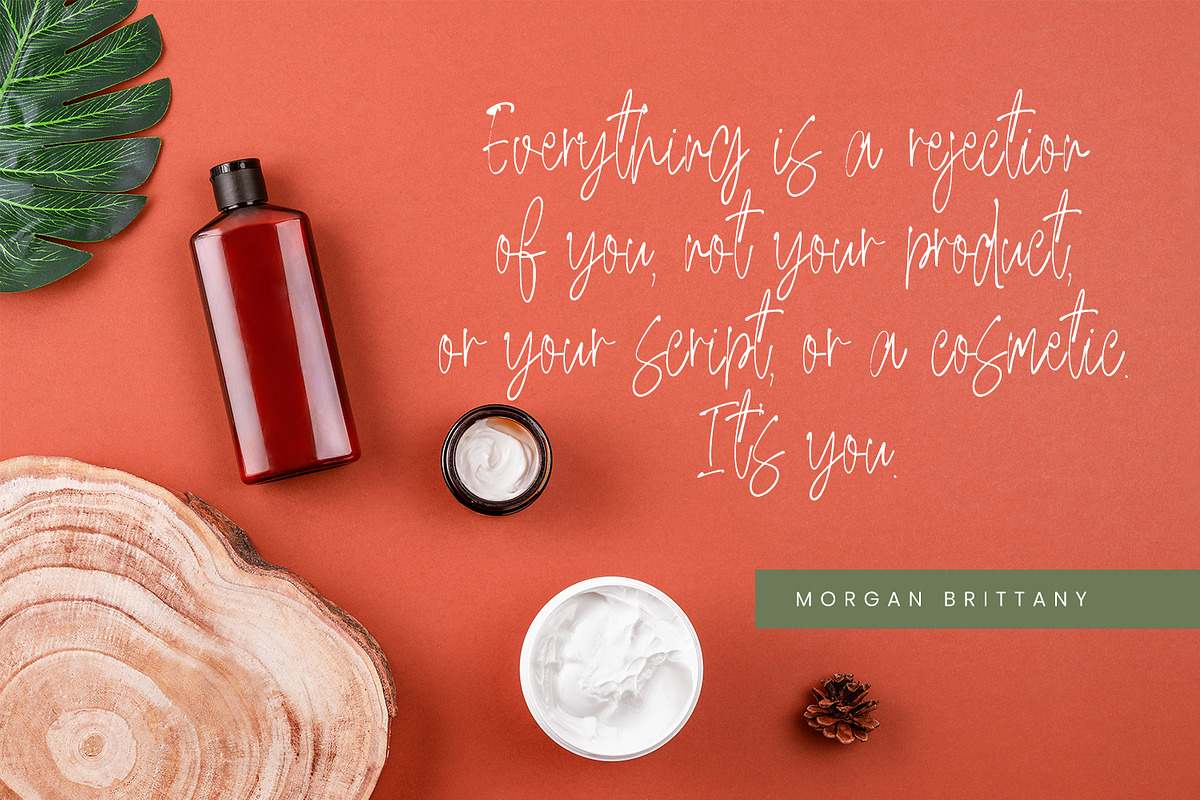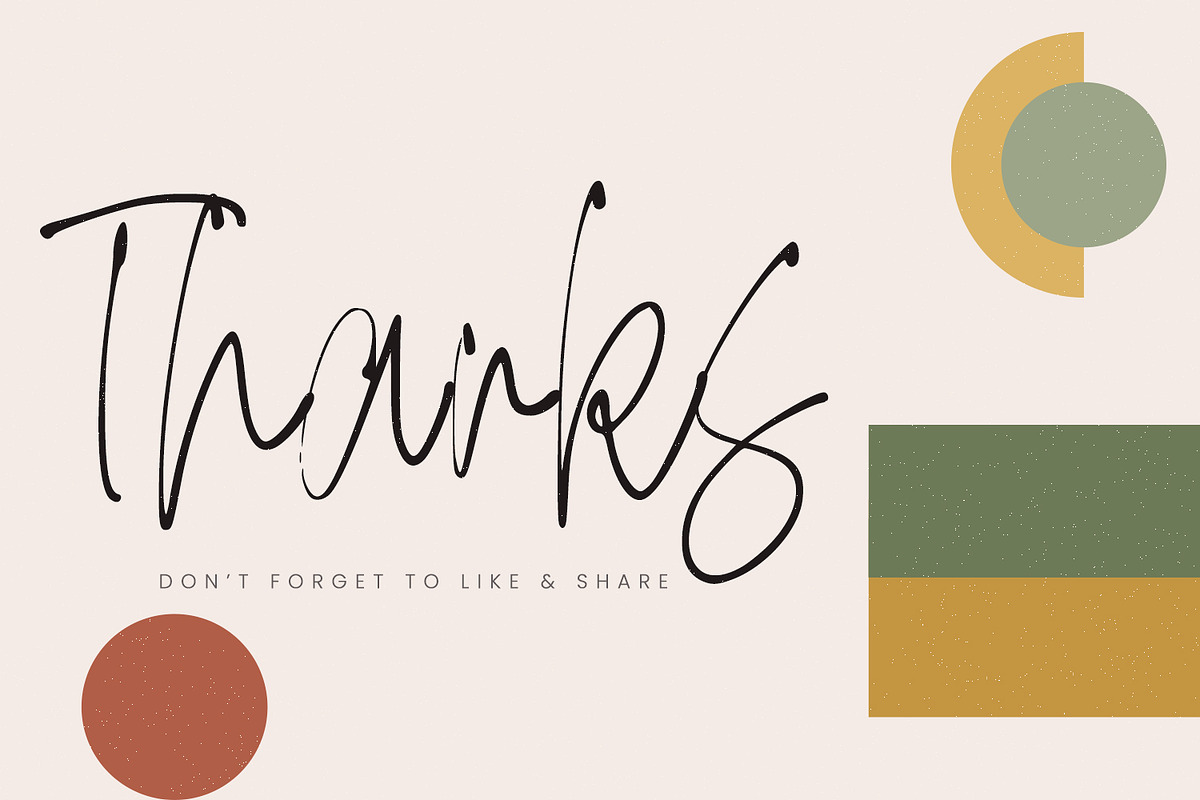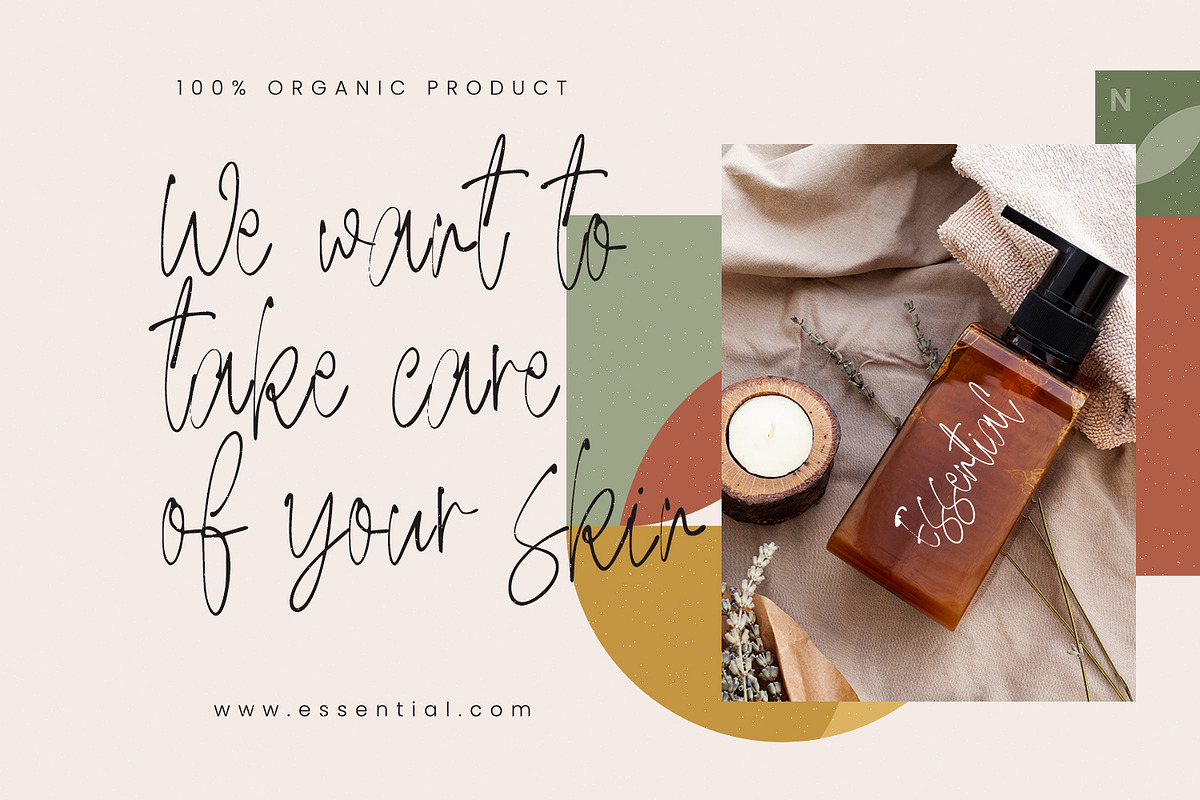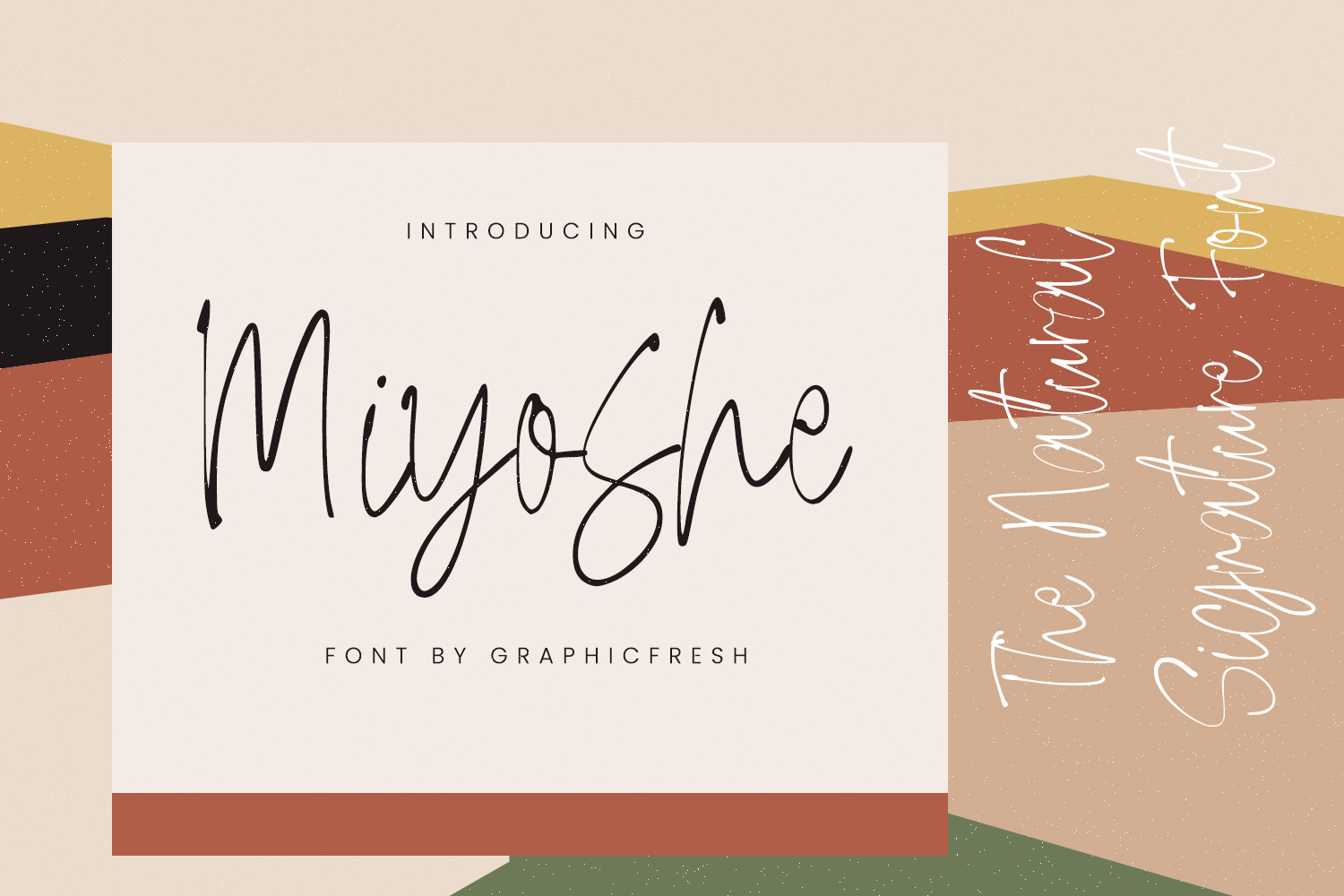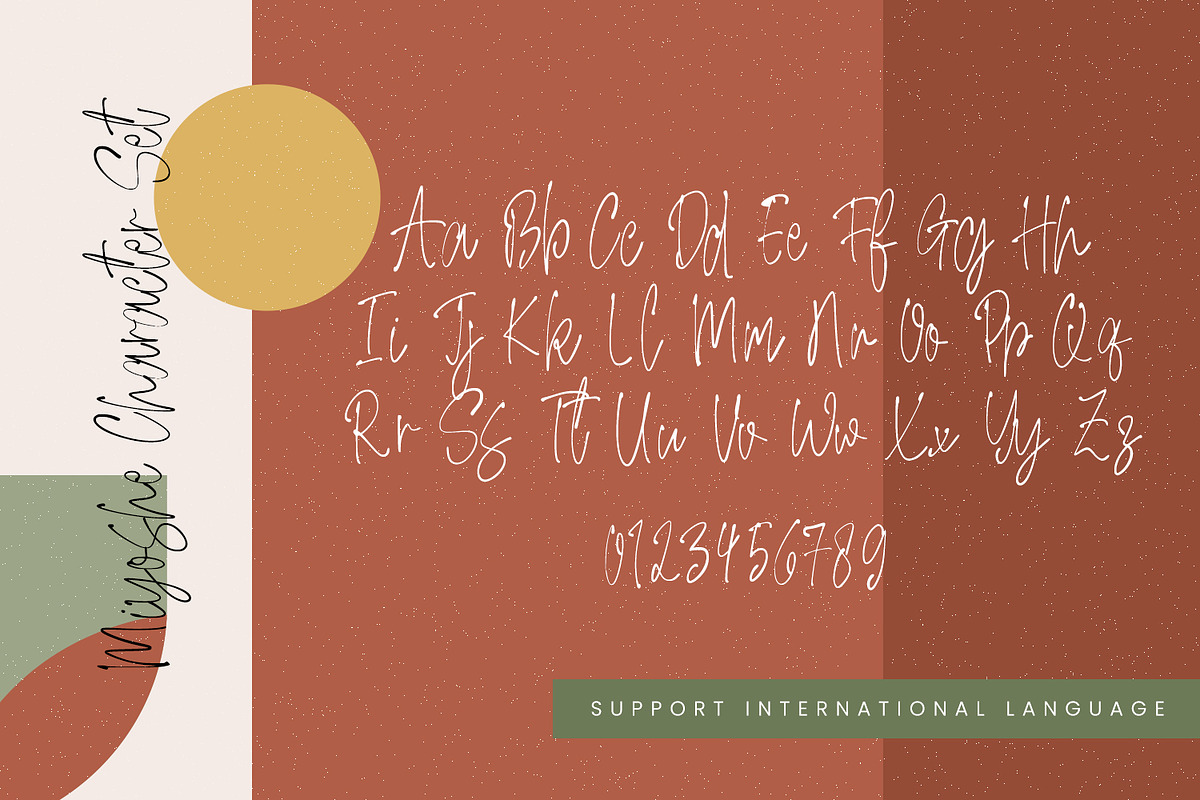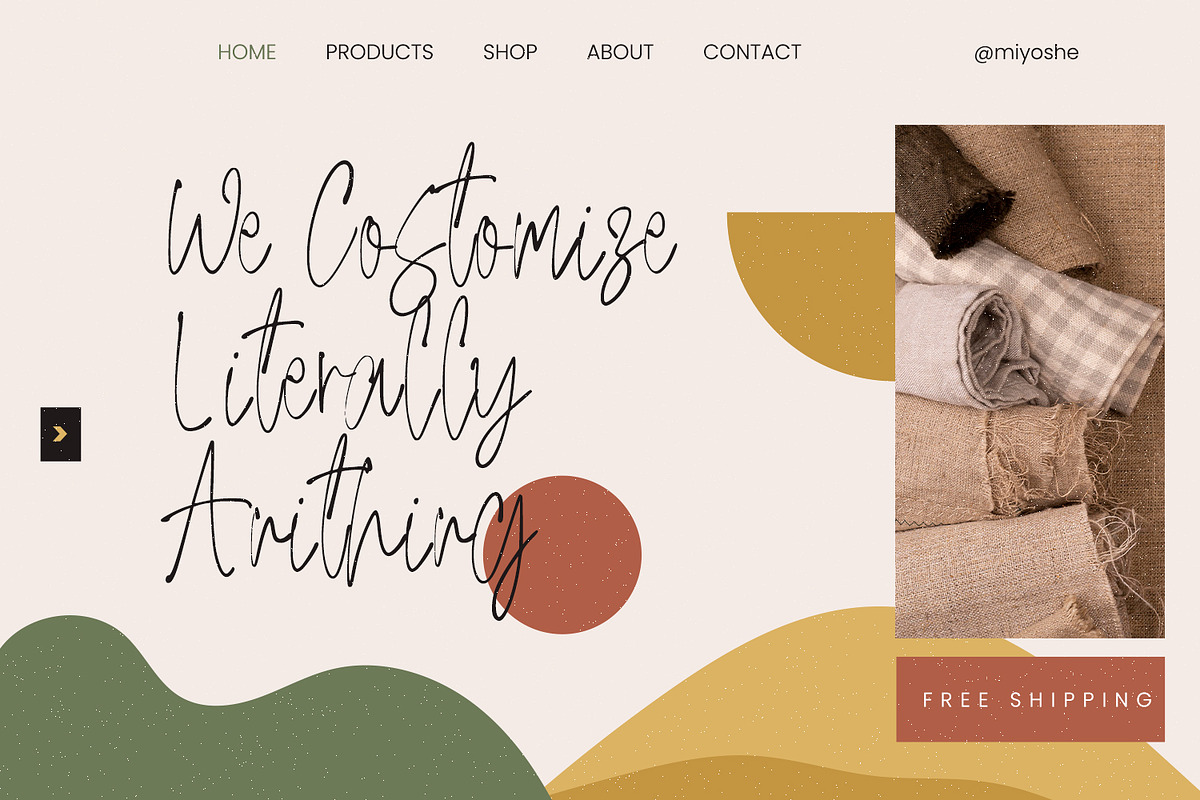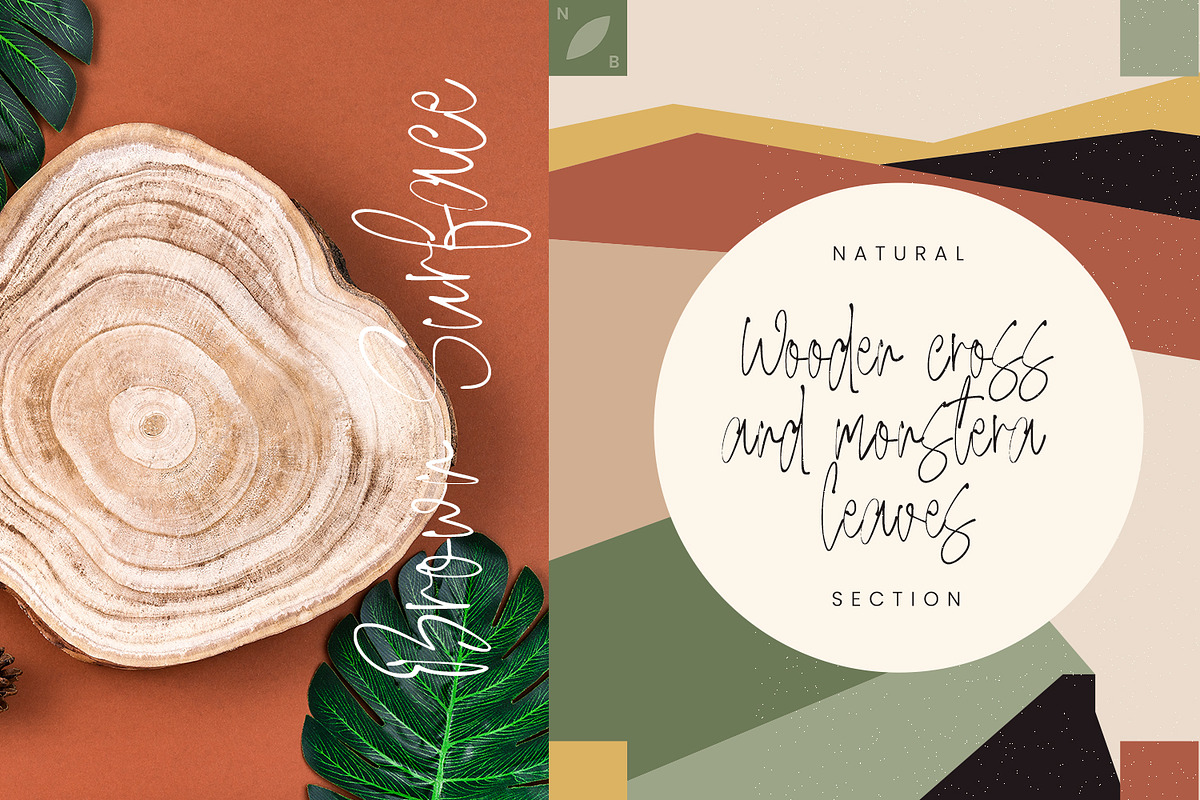
Miyoshe - The Natural Signature Font
Miyoshe - The Natural Signature Font. It comes with an elegant and modern style which is perfect to make any design stand out! This font is perfect for branding, wedding invites, magazines, mugs, business cards, quotes, posters, and more.
Miyoshe Type Features:
- Uppercase -Lowercase
- Suitable for Headlines, Logotypes, Signs, Posters, Letterhead, T-Shirt and many more.
- Support International Language